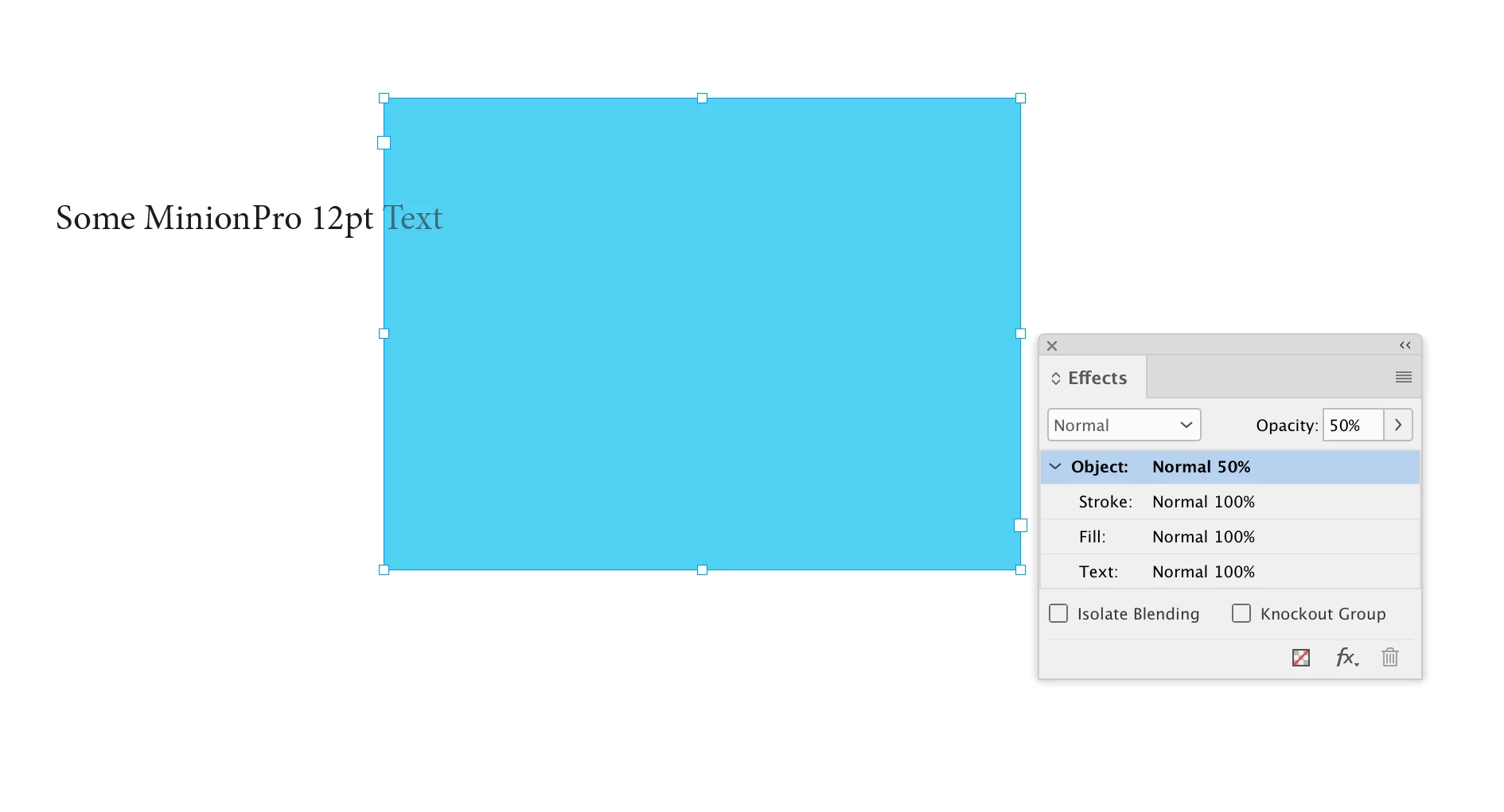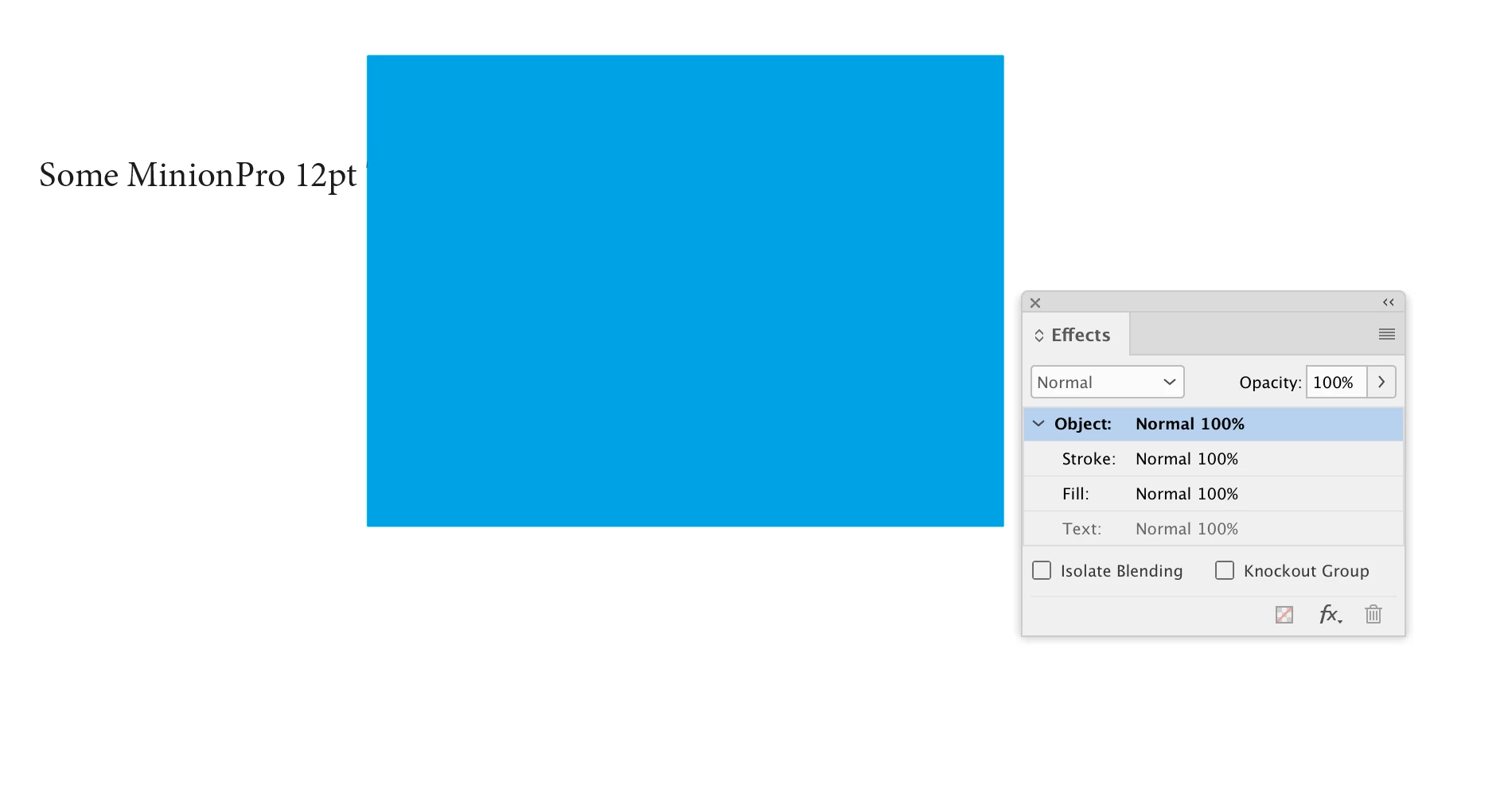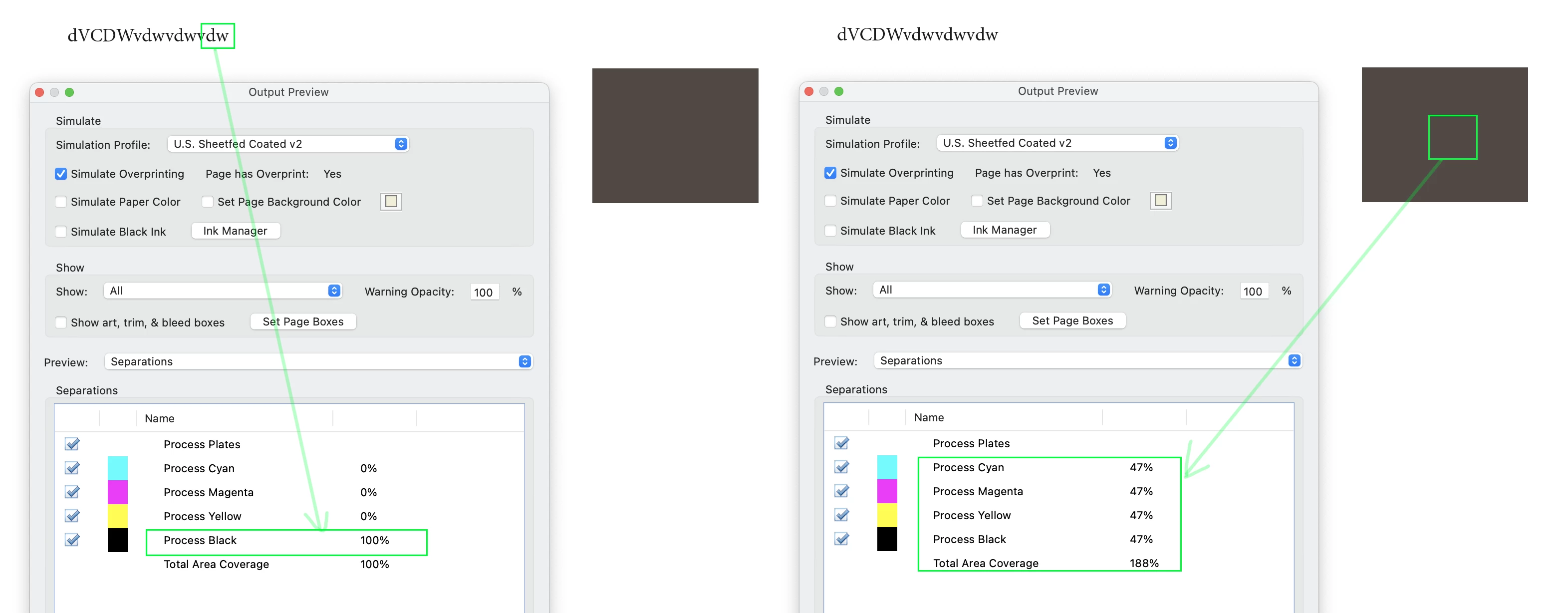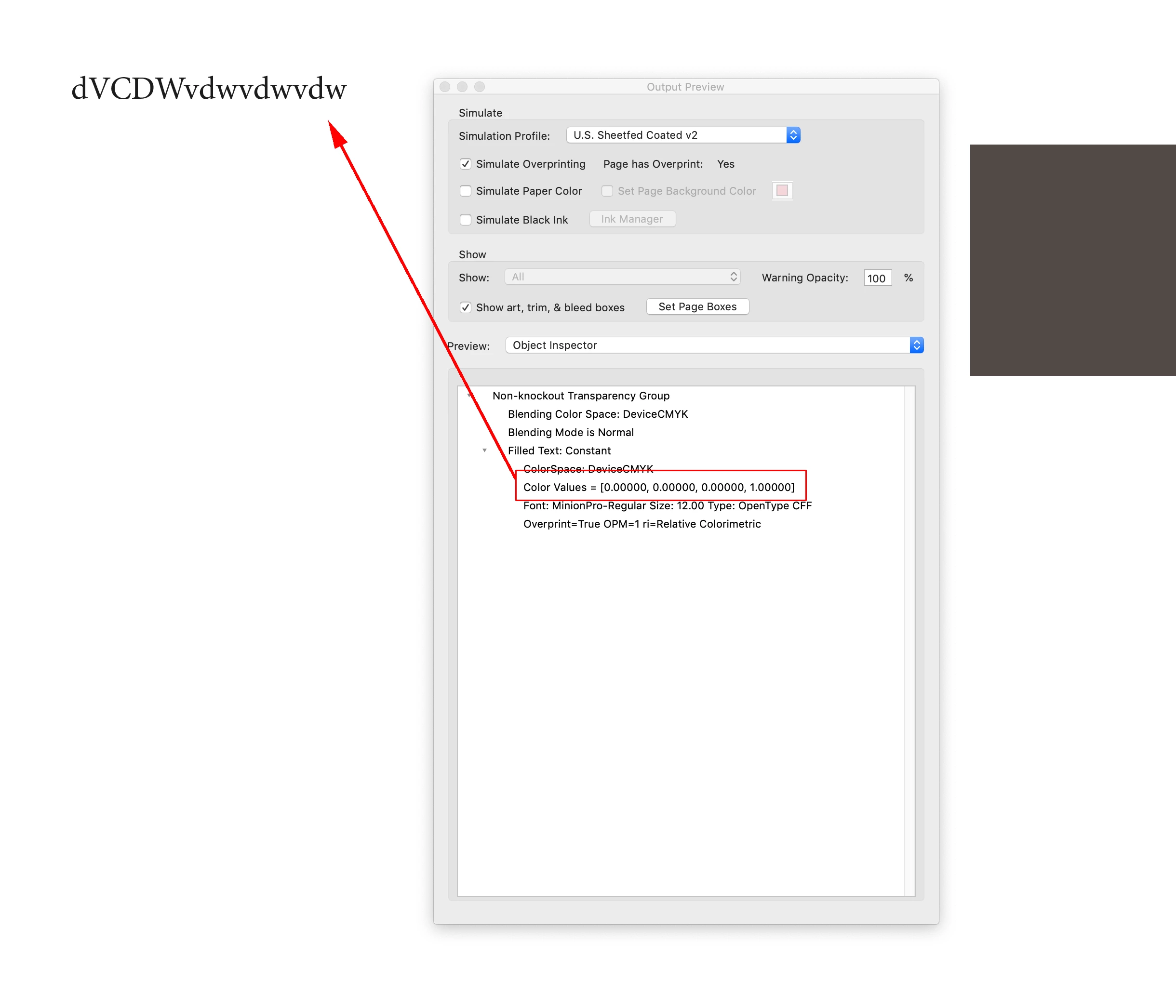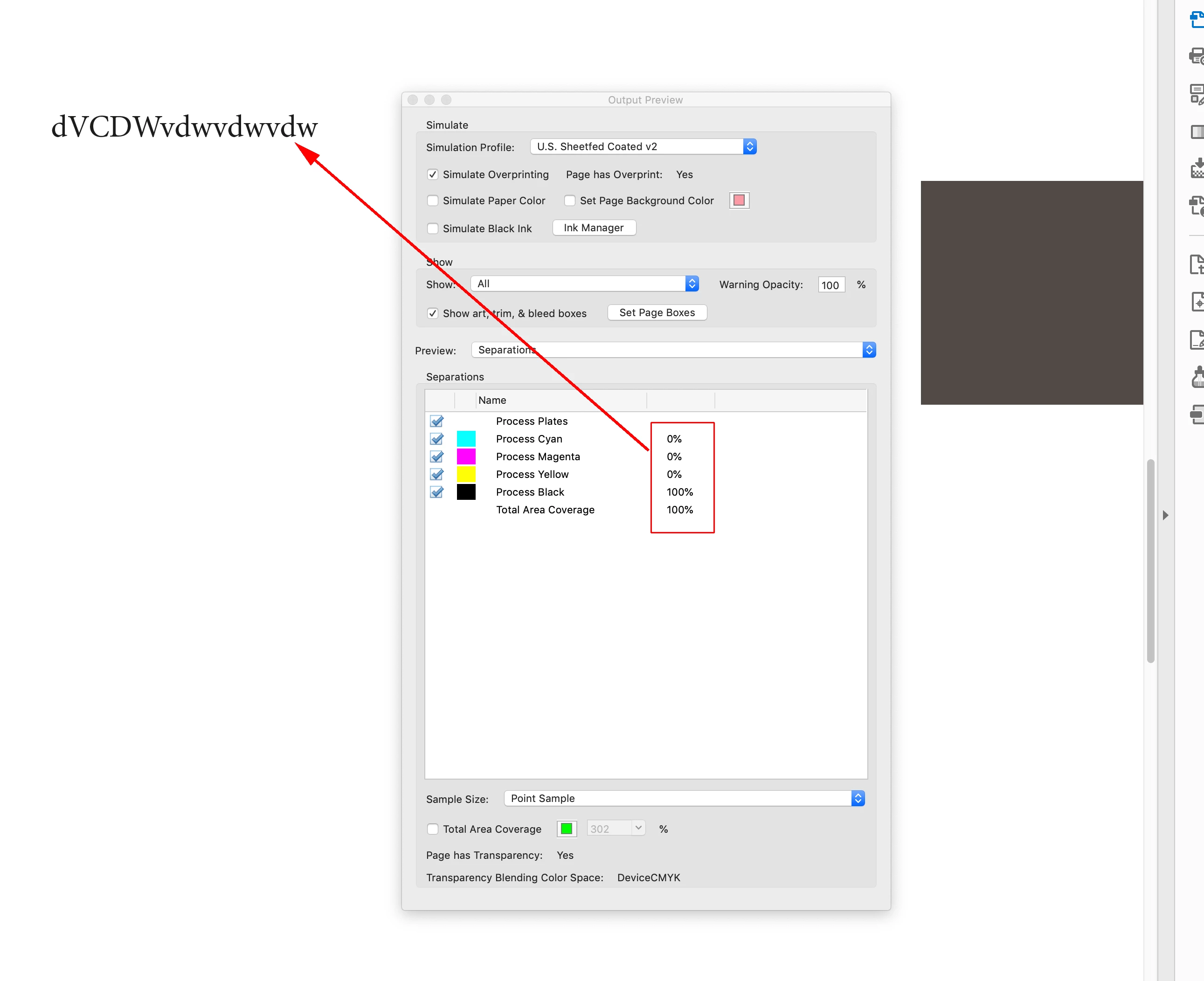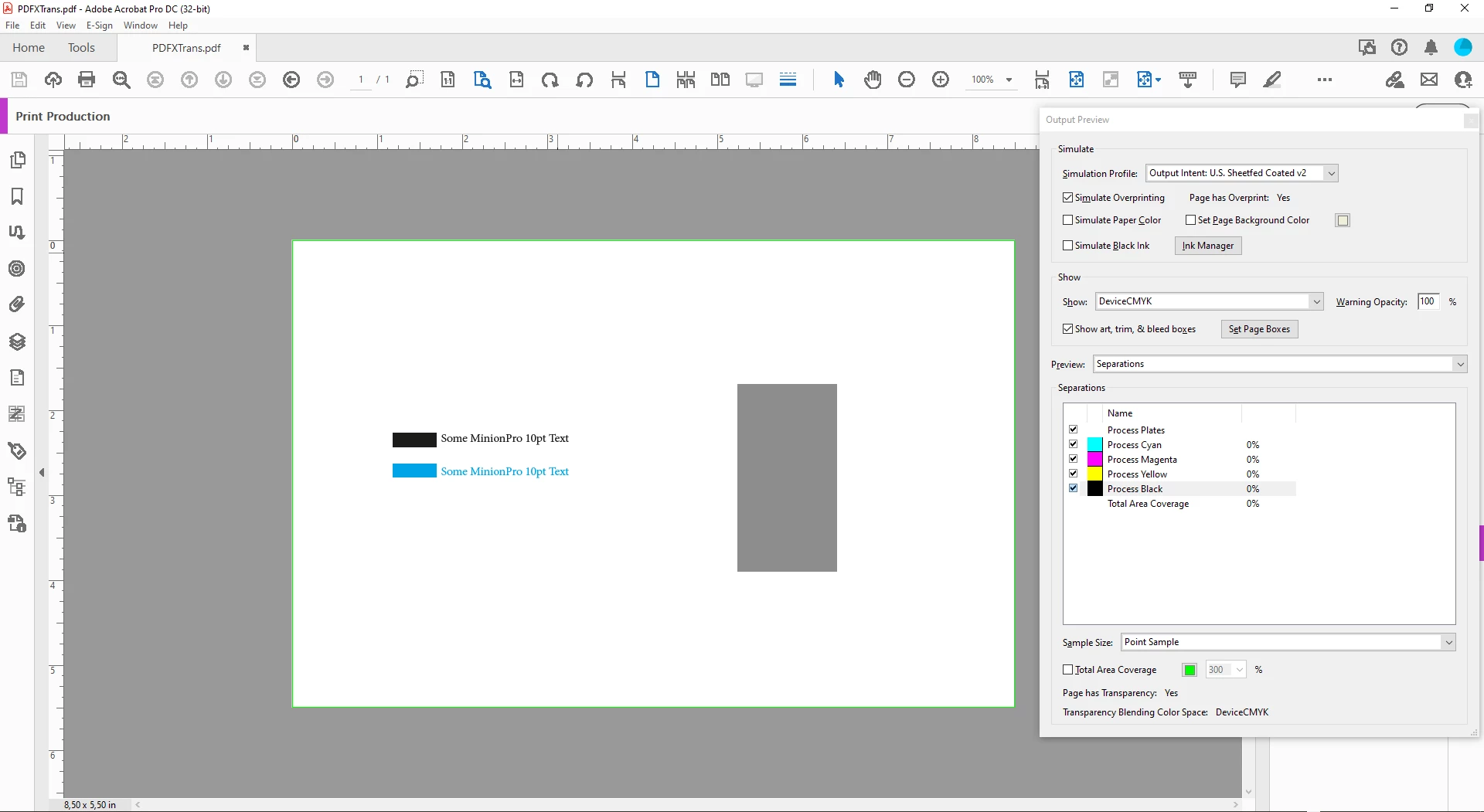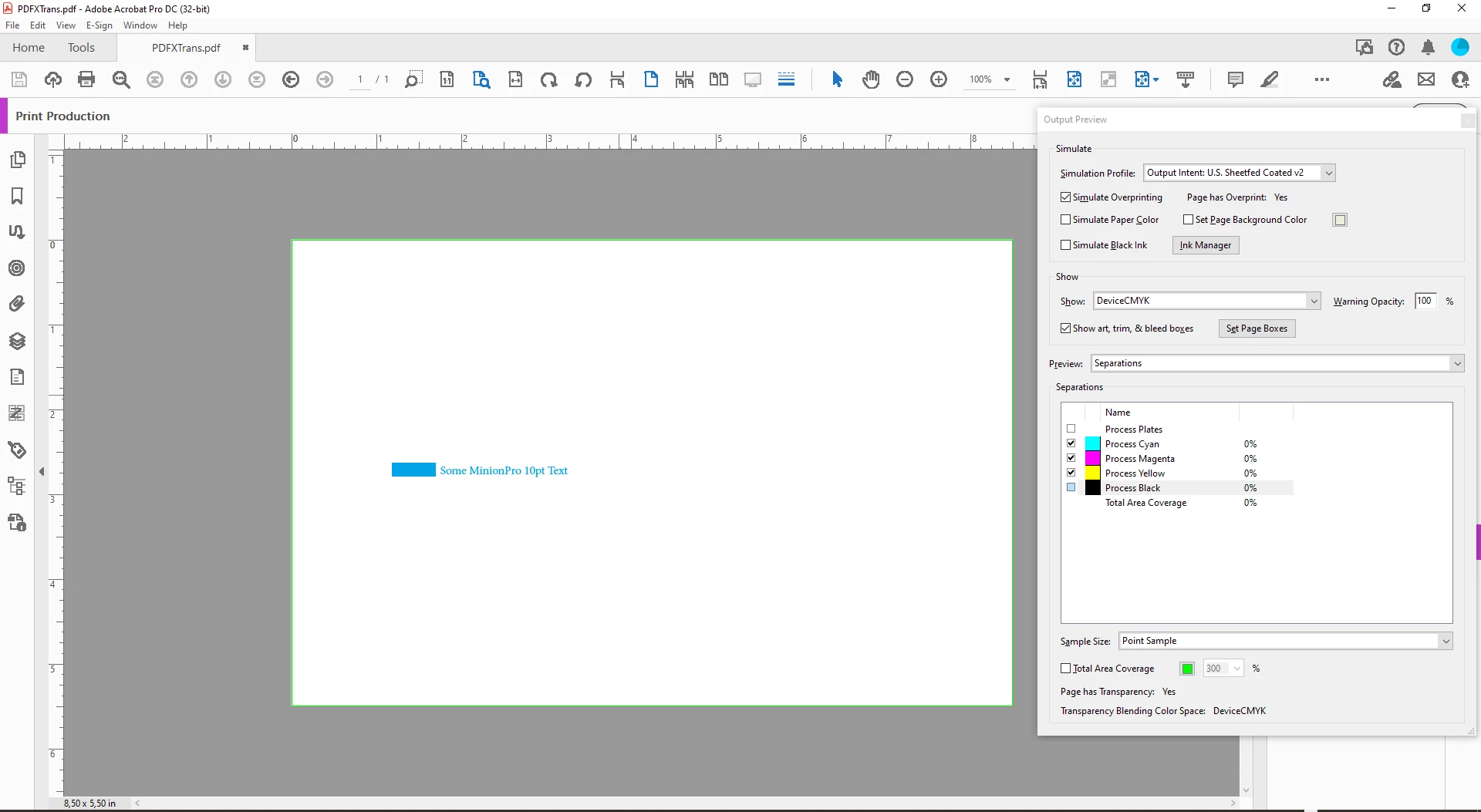
Weird font issues rendering to PDF... and it's due to images!!
So when I export to PDF my fonts vary in thickness and weight, ever so slightly to be annoying. I have figured it out that it's the client logo on each page that's causing this. I remove them (10 pages in total... all content the same layout just different data) with logo top right. So, for some reason, logos are causing this to happen. Not sure why... any thoughts??
edit.. figured it out somehwhat -  the pages that act weird have logos derived from imported svg files. All four pages appear the same, where the png logos on the other pages appear same - though svg and png pages are different. So why is ID treating svg logos and png logos oddly different?
ADDITIONAL EDIT: THIS ISSUE SEEMS TO BE A BUG IN ID. THIS HAPPENS EVEN WITH DOING A SIMPLE TEST OF A TEXT BOX AND A FILLED SQUARE NATIVE WITHIN SOFTWARE. Give that box opacity of any amount and you can see the text change. This issue doesn't care about printing - clients want this for viewing on screen, printing is an option if enduser wants. The PDF also shows these issues, and I think that since this happens with native elements within ID it is an internal bug, as I have not seen this happen in the past.
And I cannot see an issue with Rob's file "PDFXTrans.pdf" with Output Preview enabled.
I toggled between Simulate Overprinting on and off. No difference. The black text stays Process Black 100% and clearly it's in Device CMYK. Show: "Not Device CMYK" is showing an empty page.
Black ink turned off:
Well, let's switch to "Show: DeviceRGB" with several Preview settings.
Let's begin with:
Show: DeviceRGB
Preview: Separations
Show: DeviceRGB
Preview: Color Warnings
Finally do:
Show: DeviceRGB
Preview: Object Inspector
That view might be an odd one, you think.
But note, that DeviceRGB is grayed out and if I click an object the right information is shown.
Hi Uwe, this thread has drifted over to Acrobat. Do you see the problem @Todd_Morgan is complaining about in the original post in your Windows version of InDesign where black only CMYK text has a bolder appearance when any transparent object is added to the spread?
Does Windows InDesign display the attached ID page differently than Mac InDesign?
"Does Windows InDesign display the attached ID page differently than Mac InDesign?"
The answer is Yes.
I had already tested this, so I did the same with your file: I added the corresponding page without transparency, so this is the result:
However, if you truen Overprint Preview on in ID, both are identical.
By the way: There are two ways to make your fonts consistent:
1. Acrobat's Preferences > Page Display > Rendering > Smooth Text > None. This, of course takes the anti-aliasing off and will make smaller type look jaggy.
or, better
2. Acrobat's Preferences > Page Display > Use Overprint Preview > Always (or Automatic)
Basically, the answer was: "I just needed to export it in PDF/X-4 and that seemed to make the documents look exactly the same."
Seems so. although I've tried PDF/X-4 from both InDesign and Illustrator and the effect remains.
So, your PDF is fine. The effect your're seeing only seems to affect Acrobat on Windows especially on a lower-res monitor, and only on pages with any sort of transparency. Any WHOLE page with transparency is rendered into the Output Color space. Your page 2 is doing that.
What seems to be exaggerating the issue for you goes back to a potential bug in Windows Acrobat I noticed before in a different situation. It seems to read the color space of your PDF improperly in Windows Acrobat compared to Mac. Windows seems to be reading your PDF as DeviceRGB instead of DeviceCMYK.
If you go to Print Production > Output Preview and hover over each item, you can see what this is doing.
On the Mac: Your text is 100K as you intended and your object is 47% opacity of an object filled with Registration Color 100C100M100Y100K, so is correctly 47C47MM47Y47K.
Look at the same in Windows, and your text is no longer 100K, it has been rendered in 4 colours. This is what's causing your text to look fatter. (btw: I'm using the most current Acrobat in both platforms here)
Just to be clear, this is a problem only with the screen display of your file in Acrobat in Windows, and only on pages with Transparency.
So, InDesign isn't the culprit here; Acrobat is. If you open this file in a browser or other program that reads PDFs, it looks just fine.
When transparency is introduced, it can affect everything on the page, especially if there is a mix CMYK and RGB elements. (Typically, your type may be set in 0,0,0,100, whereas placed PNG files are surely RGB and possibly contain transparency.) Changing the Transparency Blend Space may help.
The other consideration is the setting in Acrobat > Preferences > Page Display > Rendering > Enhance Thin Lines.
Changed the transparancy blend to rgb... fixed it somewhat but still see it when going from page to page...